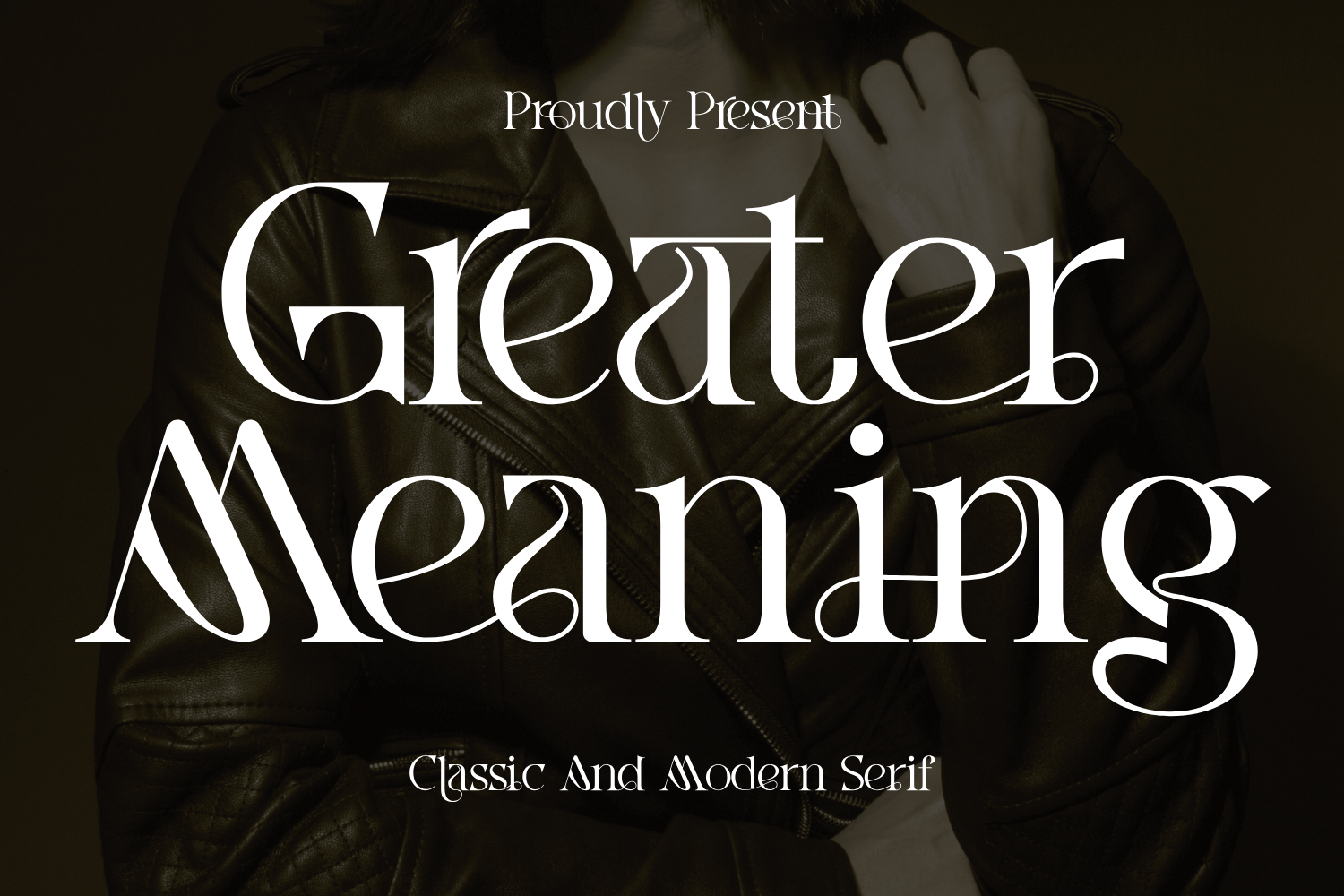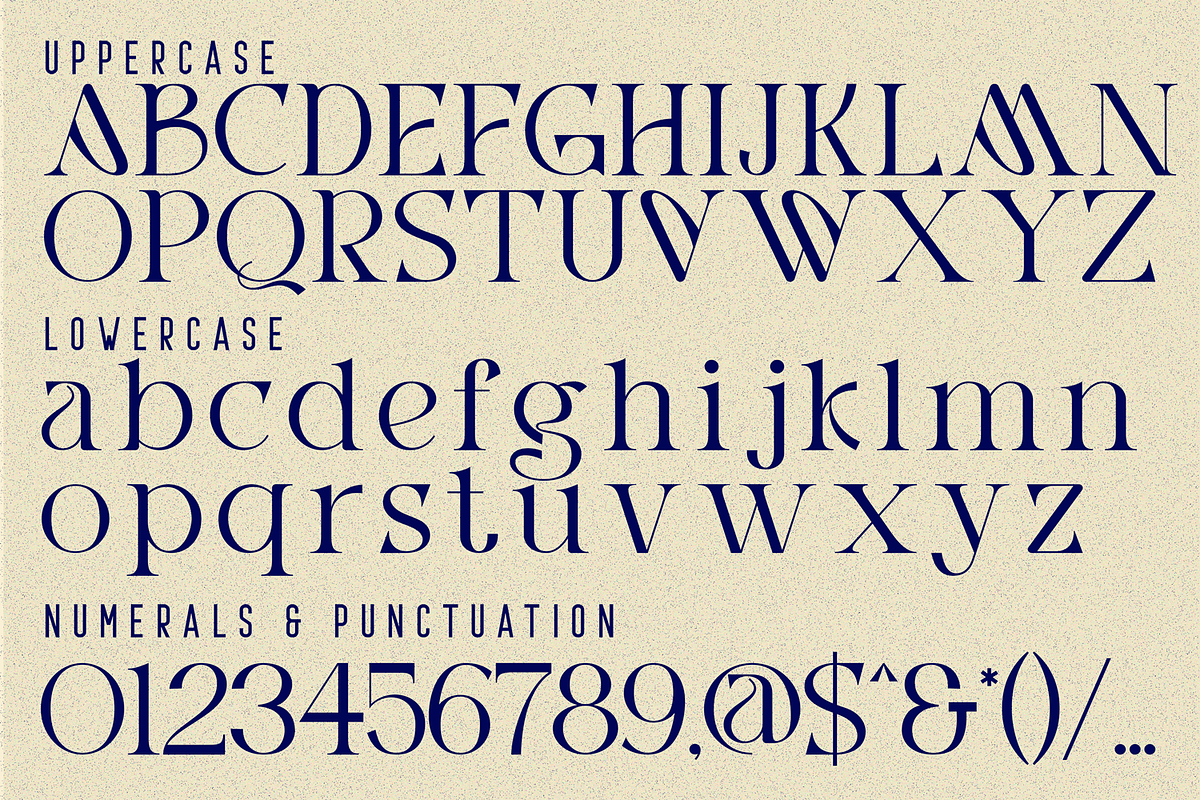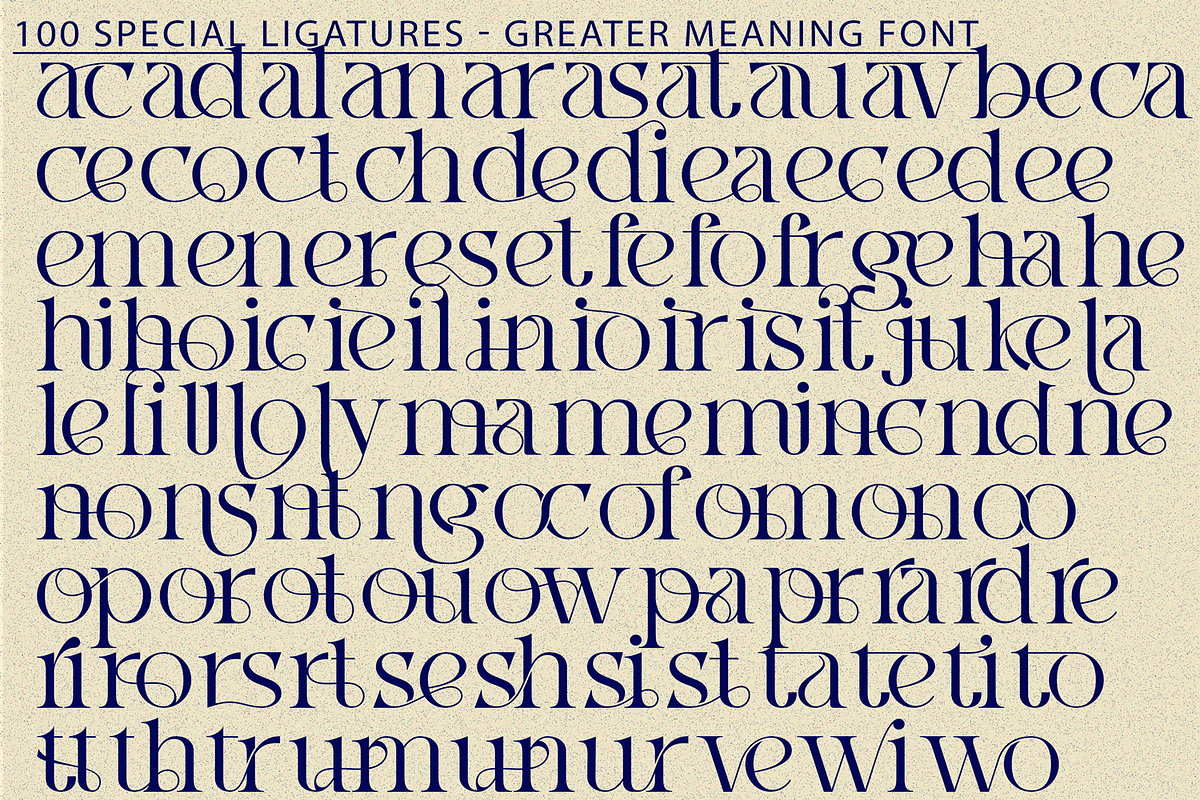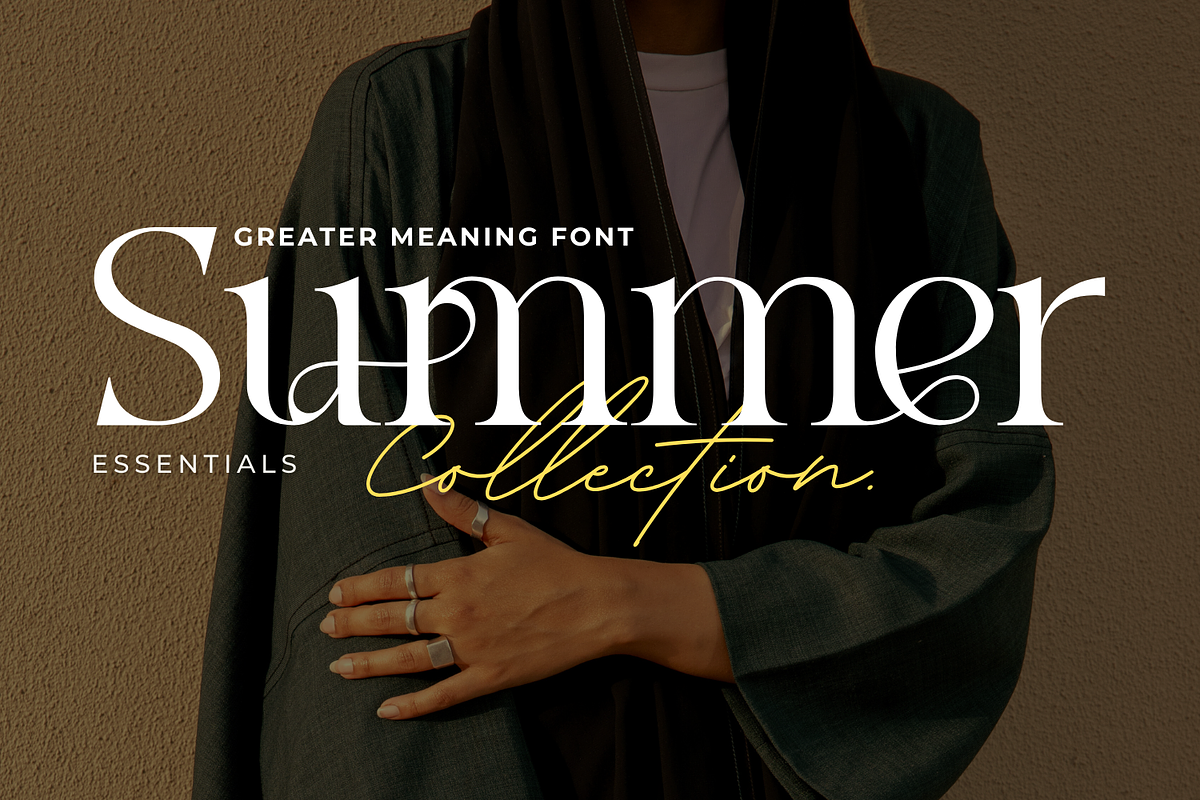
Greater Meaning - Modern Serif Font
Greater Meaning - Modern Serif Font: The Romantic Swash-Serif Typeface, a sophisticated display font that marries the structure of a classic high-contrast serif with the lyrical beauty of hand-drawn calligraphy. This typeface exudes an air of vintage luxury and romantic flair, perfect for projects demanding refinement and drama. The design is characterized by its signature dramatic contrast, showcasing thick, confident stems opposed by delicate, flowing hairlines. What truly sets Greater Meaning apart are its graceful swash elements and elegant loops—especially within the lowercase letters—that allow words to seemingly dance across the page. It possesses a uniquely feminine and artisanal quality. This font is the perfect accompaniment for luxury branding, editorial layouts, bespoke wedding stationery, high-end packaging, and any creative work that seeks a romantic, art-deco, or opulent feel.
- Uppercase & Lowercase Letters
- Around 100 Special Ligatures & Alternates
- Accented Characters for multilingual support
About 100 ligatures combined with Stylistic Alternates Font:
ac ad al an ar as at au av be ca ce ch co ct de di ea ec ed ee el em en ep er es et fe fo fr ge ha he hi ho ie ic il in io ir is it ju ke la le li ll lo ly ma me mi nc nd ne ng no nt ns oc of om on oo op or ot ou ow pa pr ra rd re ri ro rs rt se sh si so ss st ta te th ti to tr tt um un ur ve wi wo